Type Foundry
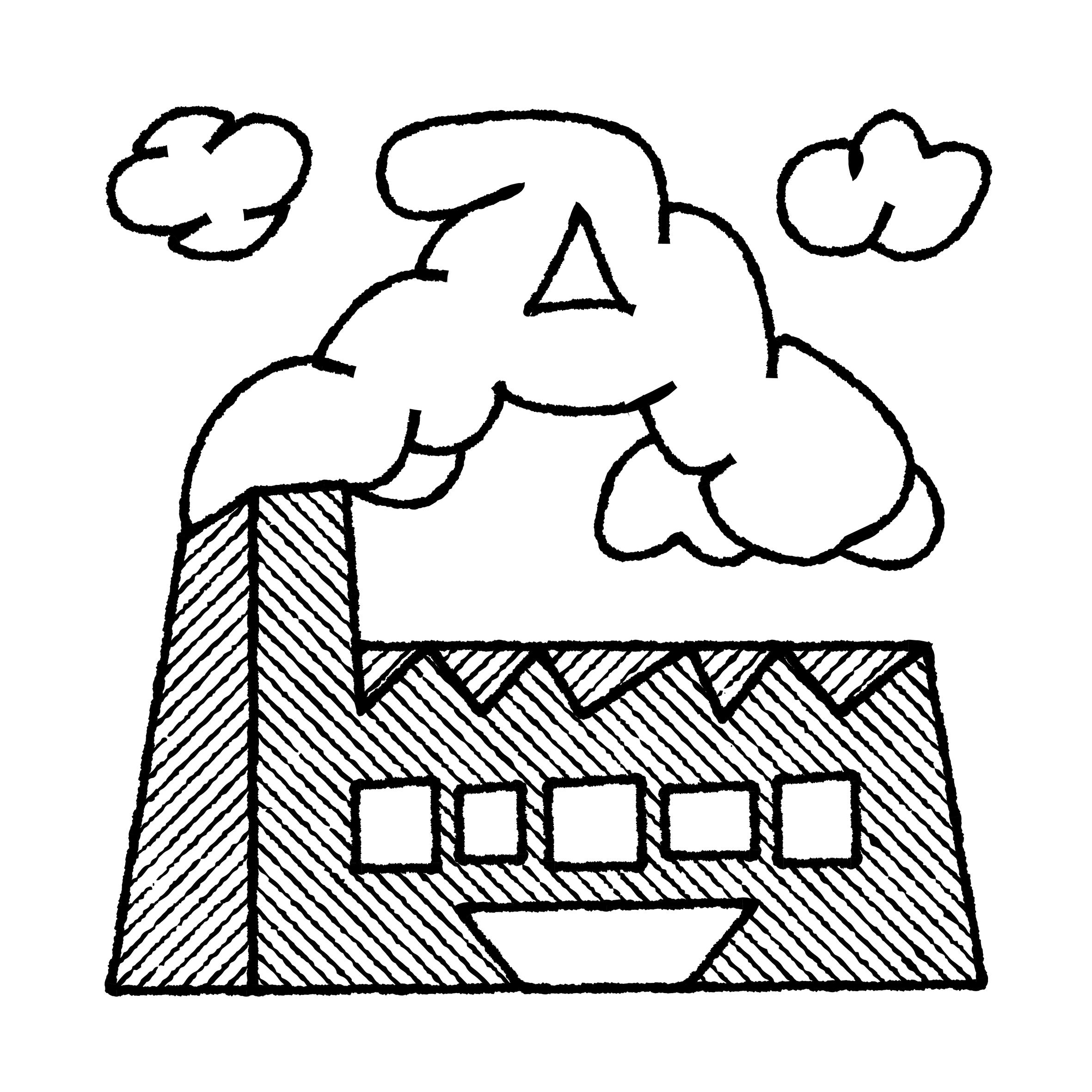
A type foundry is a design studio that produces and/or publishes retail typefaces, designs custom typefaces or does various activities related to type design (logotype designs, consultancy, etc.).
We inherited the term “foundry” from companies that produced fonts of metal type for printers. Back then, a font was a set of movable metal pieces of type in one size. Those metal pieces (one per glyph) were produced by melting an alloy of lead and other metals, which would be poured into a mold to produce multiple copies of one letterform or other character. Fondre is the French verb for “to melt.”